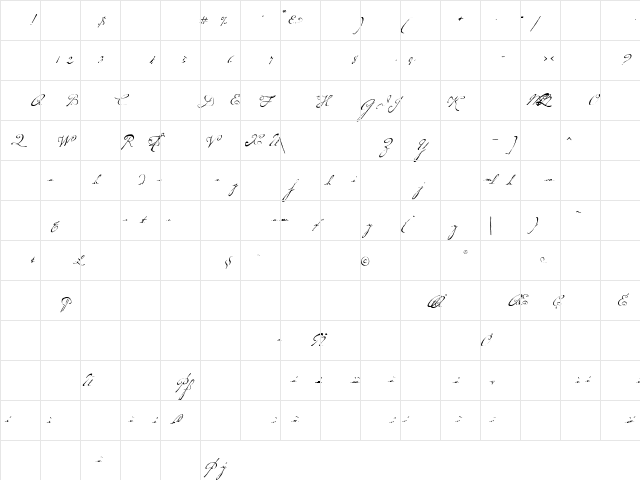
Complete P22 Dearest Script Medium glyph index. Displaying only characters natively supported by P22 Dearest Script Medium font.
P22 Dearest Script flows with the natural rhythm of handwritten lettering, making it ideal for designs that call for warmth and personal expression.
Font Pairing: Combine P22 Dearest Script with a simple geometric sans for maximum contrast - the tension between flowing curves and clean structure is a classic typographic pairing.
Pro Tip: Use P22 Dearest Script for short runs of text - names, titles, or taglines. Extended body copy in script faces tires the eye quickly.